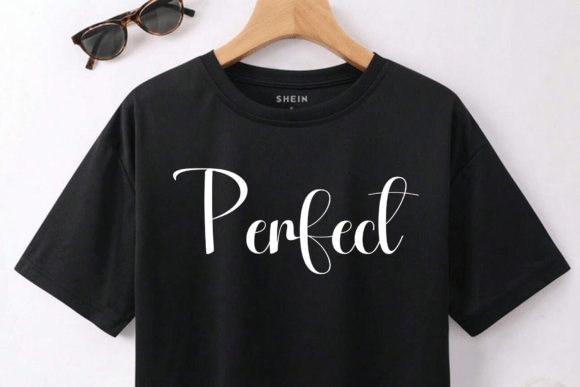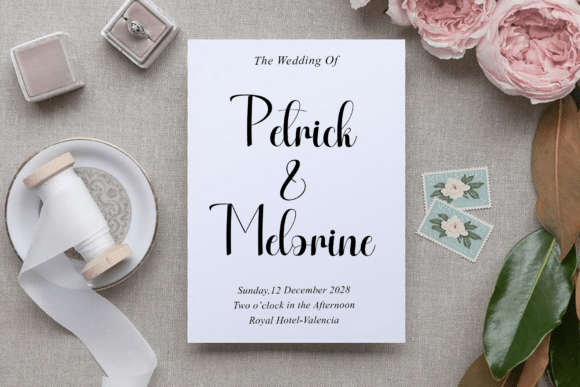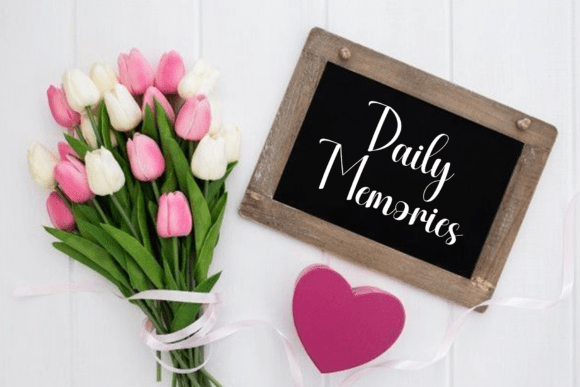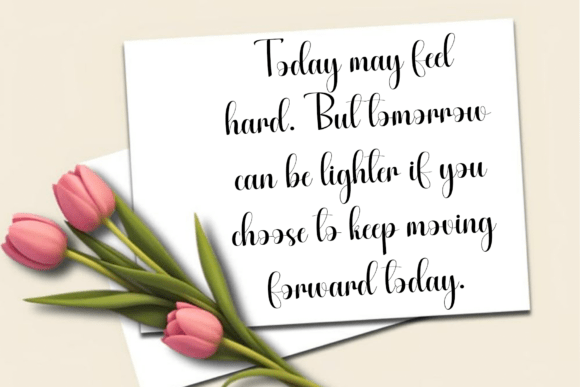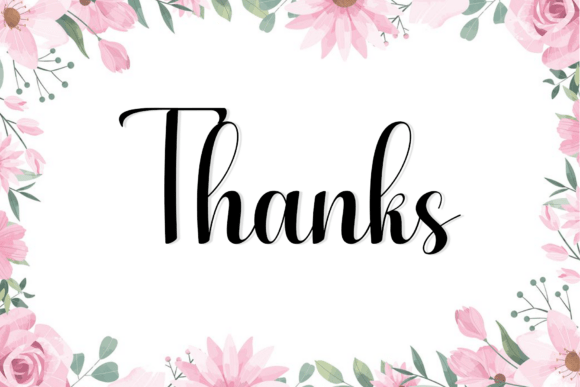
Affection Font: Elevate Your Designs with Elegance and Sophistication
In the world of typography, few fonts capture the essence of luxury and sophistication as effortlessly as Affection. This elegant and fluid handwritten script font is designed to bring a touch of modern refinement to your designs, making it the perfect choice for luxury wedding stationery, intimate event branding, high-end editorial signatures, and sophisticated lifestyle photography overlays.
The Essence of Affection Font
Affection Font is a masterfully crafted typeface that exudes elegance and poise. Its fluid lines and delicate curves evoke a sense of romance and sophistication, making it an ideal choice for designs that require a touch of luxury. Whether you’re creating wedding invitations, branding materials for an intimate event, or adding a signature to a high-end editorial piece, Affection Font is sure to elevate your design to new heights.
Perfect for Luxury Wedding Stationery
Weddings are a celebration of love and commitment, and the stationery used to set the tone for the big day should reflect that. Affection Font is a perfect choice for luxury wedding stationery, including invitations, save-the-date cards, and wedding programs. Its elegant and sophisticated design will add a touch of refinement to your wedding stationery, setting the tone for a truly unforgettable celebration.
Intimate Event Branding
Intimate events, such as baby showers, bridal showers, and anniversaries, require a level of sophistication and elegance that Affection Font delivers. This font is perfect for creating custom branding materials, including invitations, programs, and signage, that will make your event feel truly special.
High-End Editorial Signatures
For editorial designers, Affection Font offers a unique opportunity to add a touch of luxury to high-end editorial pieces. Whether you’re designing a signature for a fashion editorial, a lifestyle magazine, or a celebrity profile, Affection Font is sure to make a statement. Its elegant design and sophisticated feel will add a level of refinement to your editorial piece that will leave a lasting impression on readers.
Sophisticated Lifestyle Photography Overlays
Lifestyle photography often requires a level of sophistication and elegance that Affection Font delivers. This font is perfect for creating overlays that add a touch of luxury to your photographs. Whether you’re designing a social media graphic, a blog post, or a website header, Affection Font is sure to elevate your design and add a level of refinement that will make your photographs stand out.
Why Choose Affection Font?
So why choose Affection Font for your design projects? Here are just a few reasons:
- Elegance and sophistication: Affection Font is designed to bring a touch of luxury and refinement to your designs.
- Versatility: This font is perfect for a wide range of design projects, from wedding stationery to high-end editorial signatures.
- Unique design: Affection Font has a unique design that will set your designs apart from the rest.
In conclusion, Affection Font is a elegant and sophisticated handwritten script font that is perfect for designers and crafters looking to add a touch of luxury to their designs. Its fluid lines, delicate curves, and refined feel make it an ideal choice for luxury wedding stationery, intimate event branding, high-end editorial signatures, and sophisticated lifestyle photography overlays. With its versatility, ease of use, and unique design, Affection Font is sure to become a go-to font for designers looking to elevate their designs to new heights.